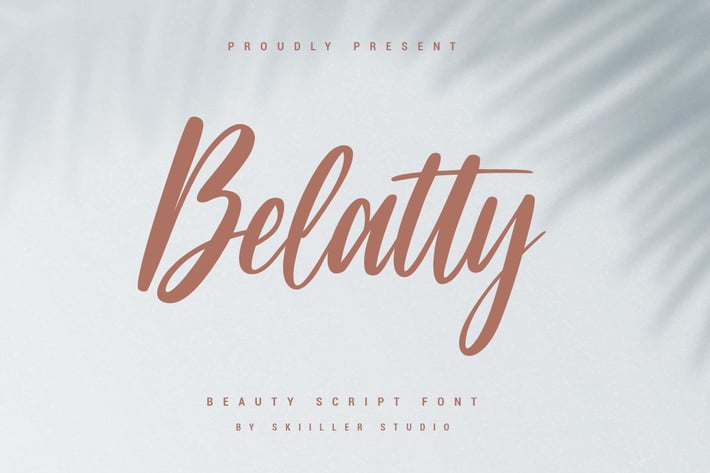
Belatty - Beauty Script Font
Belatty is a beautiful light handwritten font with a unique feel and a stunning impact ! This font is PUA encoded which means you can access all of the amazing glyphs and ligatures with ease!